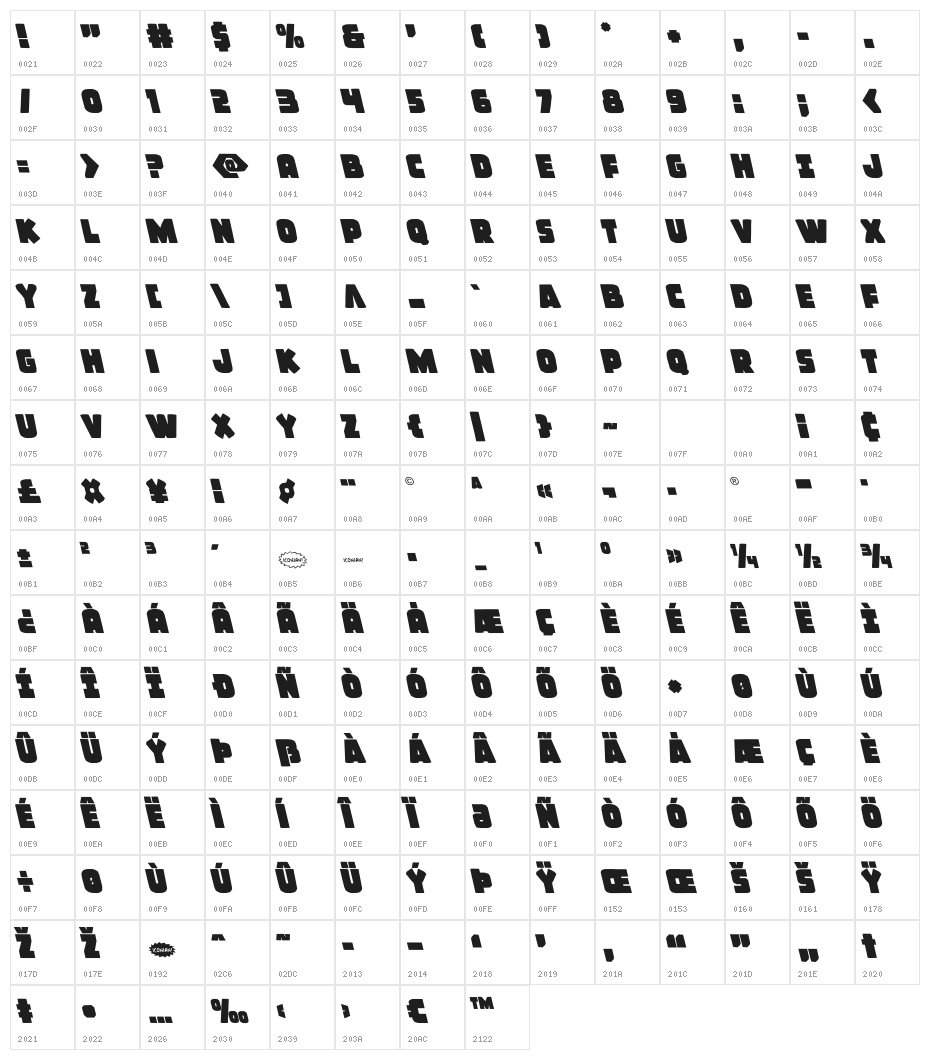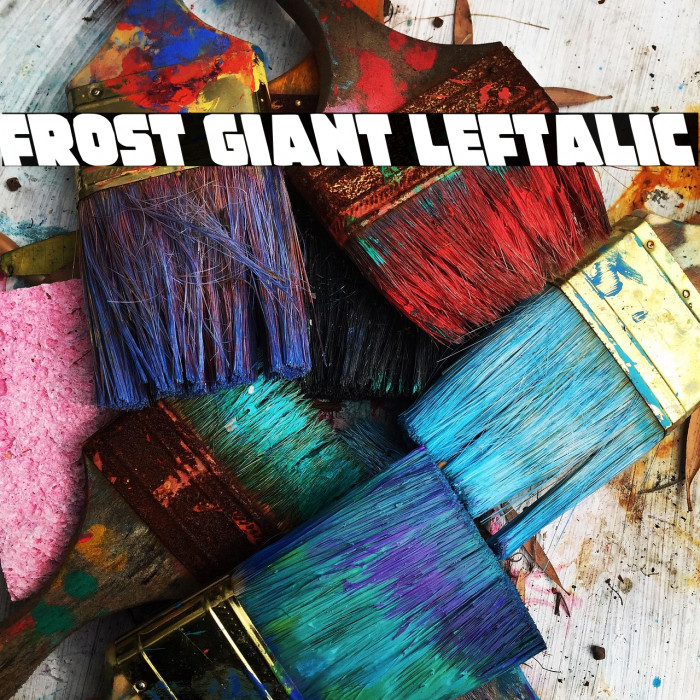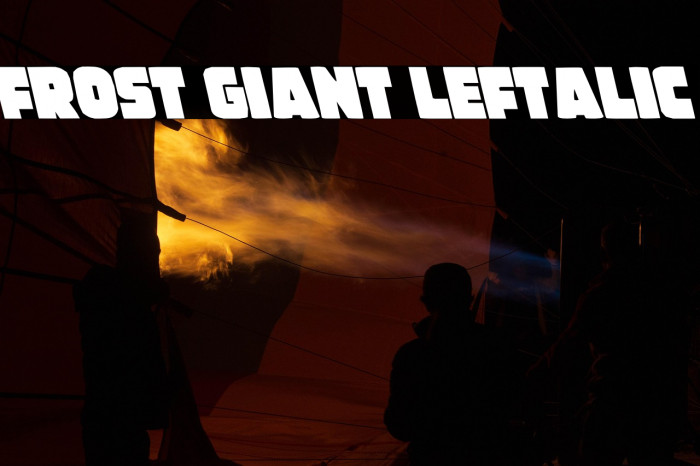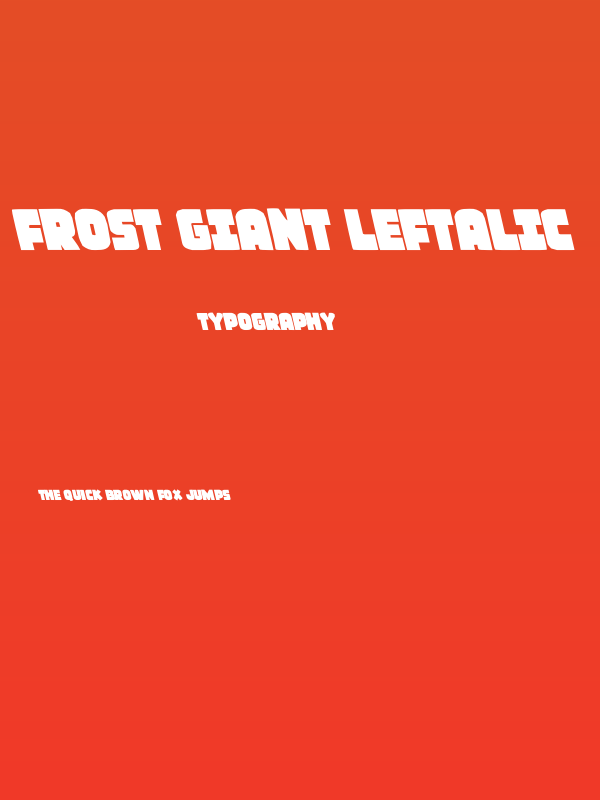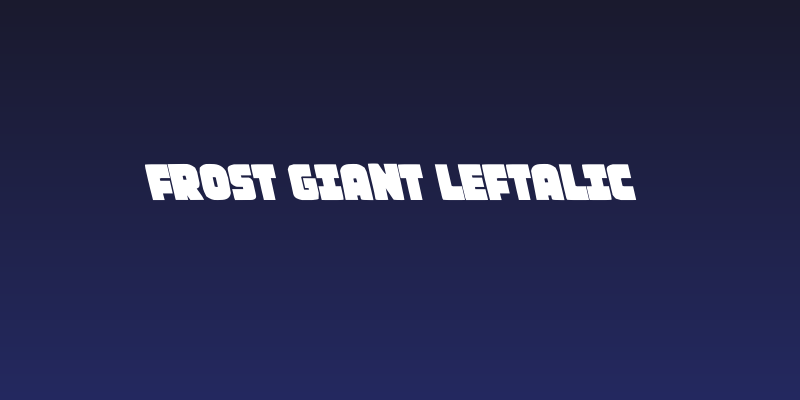
Frost Giant Leftalic Font
Frost Giant Leftalic Description
This font features a bold and impactful design with a strong presence. The characters are wide and heavily weighted, creating a sense of strength and stability. Each letter is slightly slanted, giving a dynamic and energetic feel. The strokes are thick and consistent, with minimal contrast, emphasizing a robust and solid appearance. The overall style is modern and assertive, making it suitable for attention-grabbing headlines and display purposes. The spacing between characters is tight, enhancing the compact and cohesive look of the text.
| Proposed Projects | Ideal for headlines, posters, branding, and any project requiring a bold statement. |